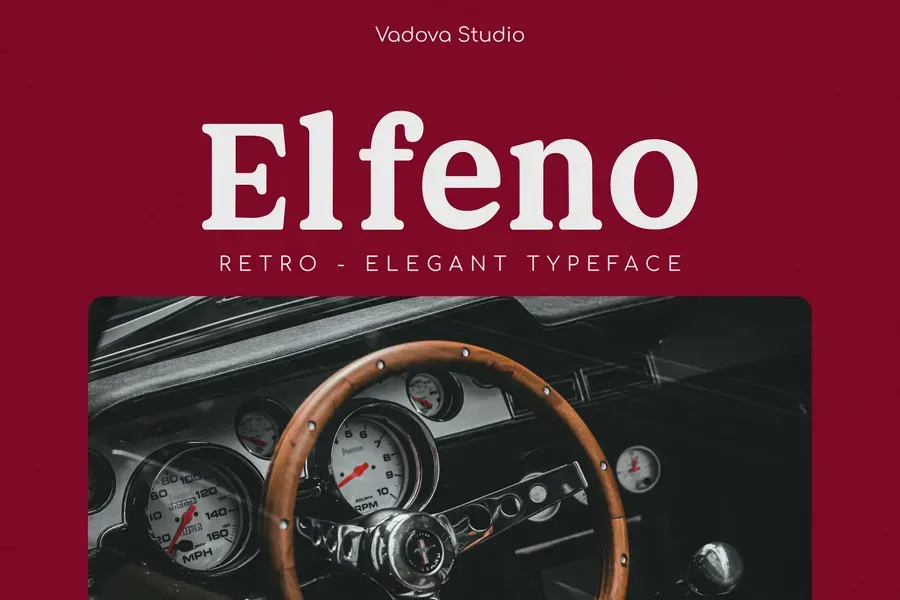
Elfeno is a retro elegant serif font that blends classic charm with modern sophistication. With sharp serifs, balanced proportions, and stylish details, it is perfect for editorial layouts, logo design, vintage posters, and premium branding. Elfeno brings timeless appeal to both print and digital media, capturing the essence of tradition while remaining visually relevant in modern design.